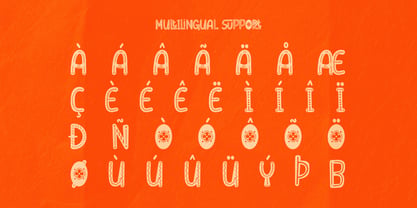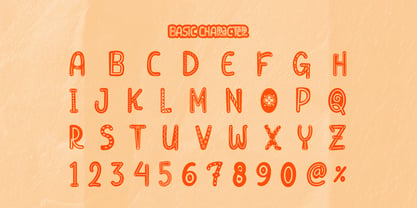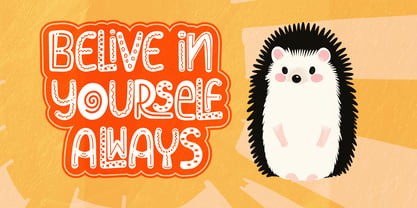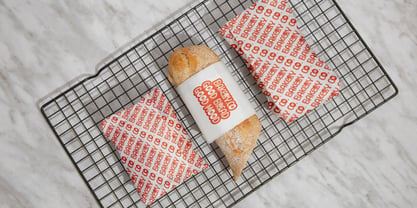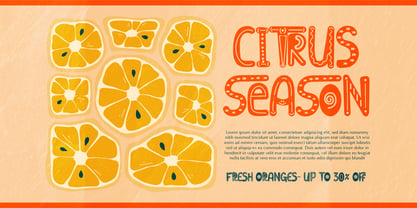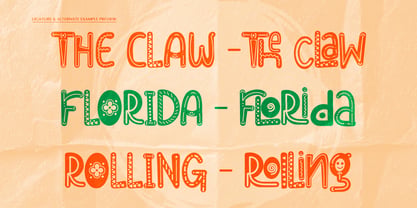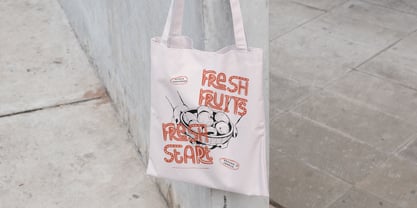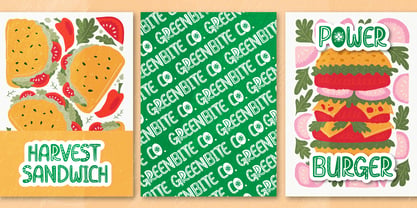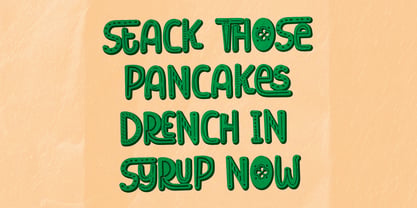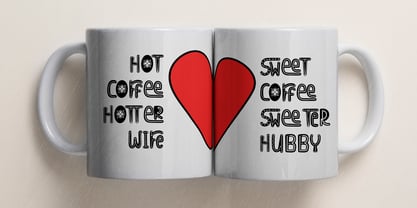
Funny Alfredo
by Tini Fitriani
The Funny Alfredo Font Family was designed by and published by Tini Fitriani. Funny Alfredo contains 1 styles. More about this family
Funny Alfredo | Fun Hand Drawn, from Gracetypestudio, suitable for any projects such as: logos, branding projects, homeware designs, product packaging, mugs, quotes, posters, shopping bags, t-shirts, book covers, name card, invitation cards, greeting cards, label, photography, watermark, special events, and all your other lovely projects that need a Fun Hand Drawn taste.
• Alternate and Ligature